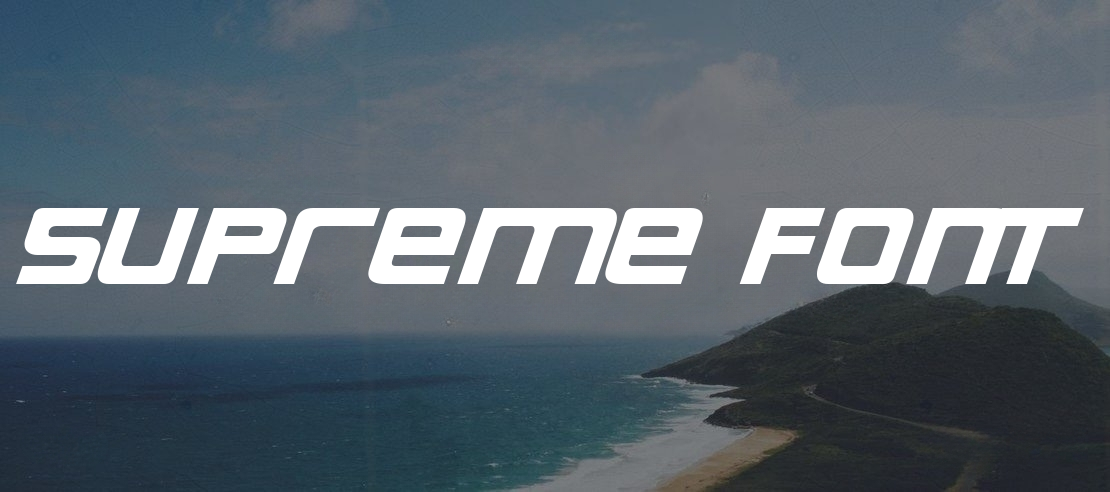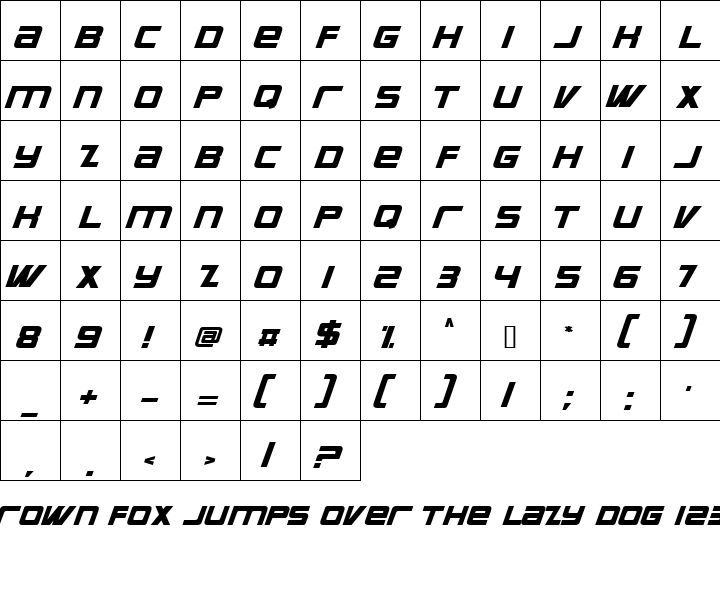
Here we are introducing a famous typeface that belongs to Sans-Serif Font Family that comes under the geometric style named Supreme Font. This font style is inspired by the typeface that was used in the logo of Supreme brand logo that was situated in New York. This brand was first seen in 1994.
It was a small skate shop that was situated in Downtown Manhattan. After some time passed, it started working with fashion companies, Photographers, Celebrities, and borders.
Bangers Font and Marvel Font are the first two fonts that spring to mind when we think about typefaces that are similar to this font. So, you can use this typeface instead of these typefaces. This font is also used in Canva as texture content for designs and projects. This font style is also a part of a collection available in google and adobe font libraries.
Designer of Supreme Font
The original font that was used in the logo of this font was fox sans font and this font is designed by a famous designer named Paul Renner.
This sharp bold texture style is designed by a well-reputed typographic designer who has made his worth in the typography industry named Paul Renner.
He was also the creator of many famous typefaces like Futura Font. While creating this font the focus was on the readability of this font style. All styles are mentioned below.
The original typeface Futura font has also been designed with a large family of its own.
This textured style is comprised of a family of its own. Each style feature includes Uppercase, Numbers, Symbols, Punctuations, and Multi-Language Support.
| Name | Supreme Font |
| Designer | Paul Renner |
| Foundry | None |
What type of font is Supreme font?
It is a type of Sans-Serif font family. This typeface is designed by a well-known designer named Paul Renner.
What font is closest to Supreme Font?
Some of the typographies are really similar to this font texture. But, futura font has the utmost similarities to this font.